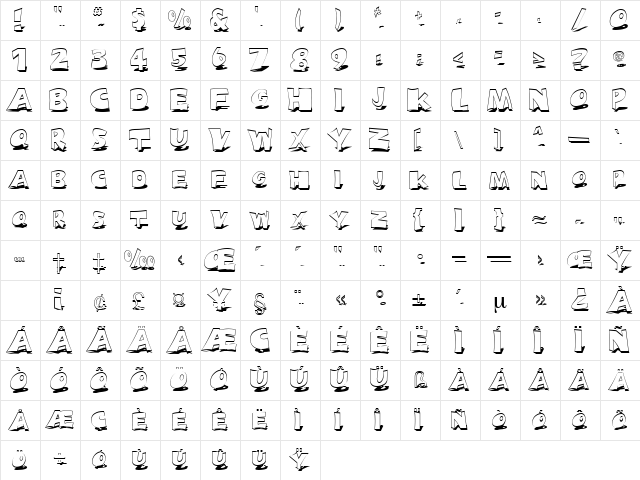
HattrickShadow Regular Font Preview
HattrickShadow Regular
HattrickShadow Regular Font Details
Design Context for HattrickShadow Typeface
HattrickShadow brings ornamental detail and strong personality to headlines and identities, where visual impact matters more than quiet functionality.
Font Pairing: Pair with a clean neutral sans-serif for body copy to let HattrickShadow's character lead without overwhelming the composition.
Pro Tip: Use HattrickShadow exclusively at display sizes — it was designed to be seen, not read at length. Let a neutral companion handle body copy.